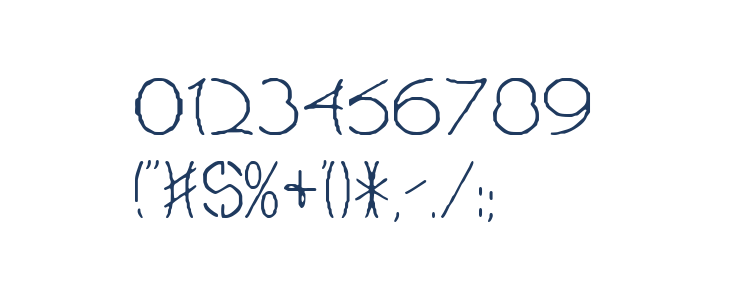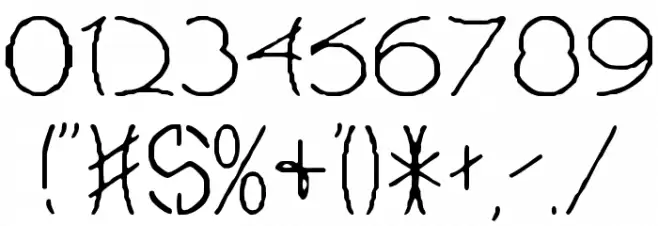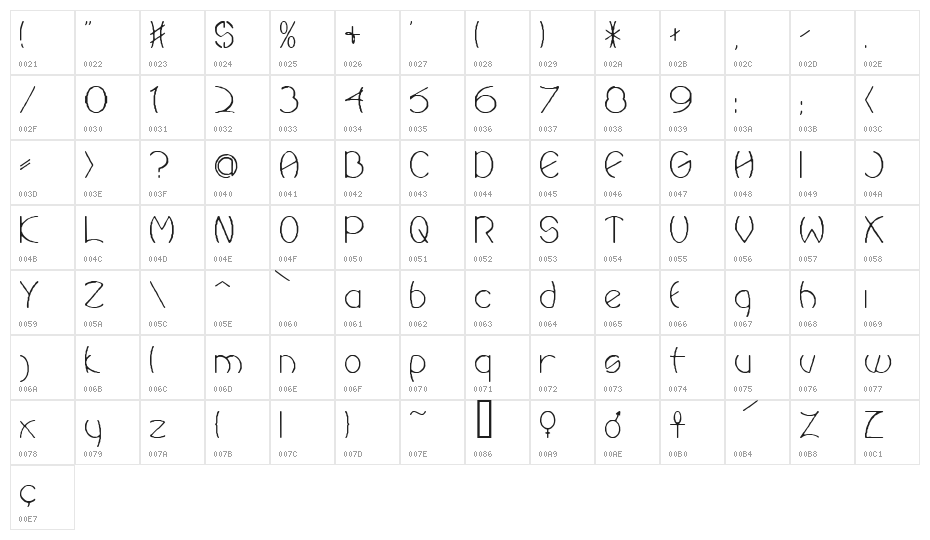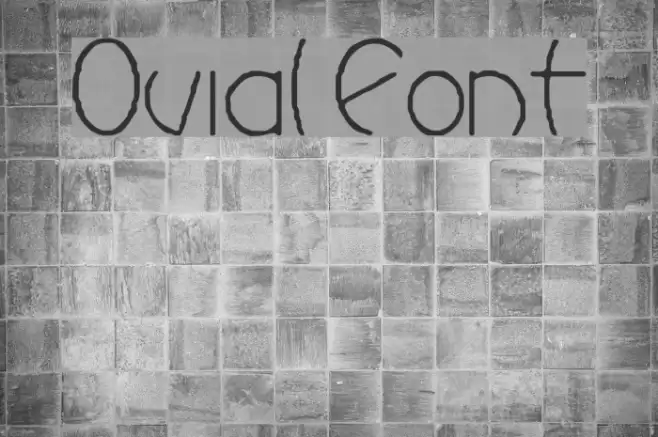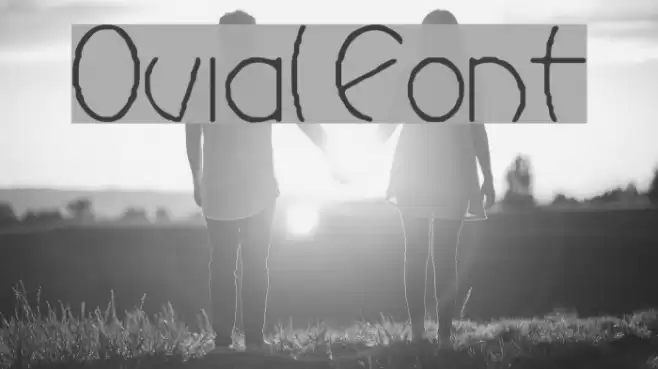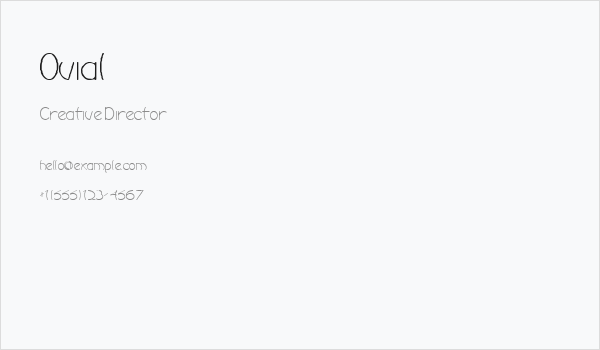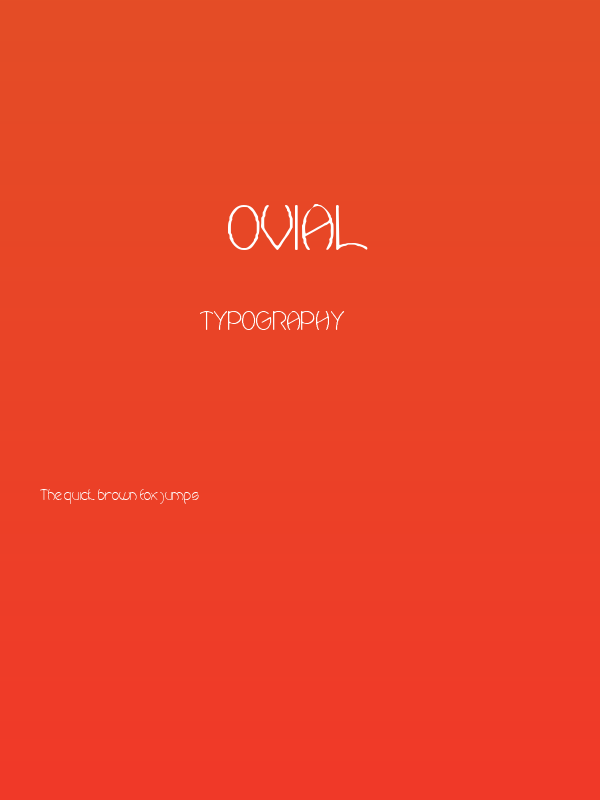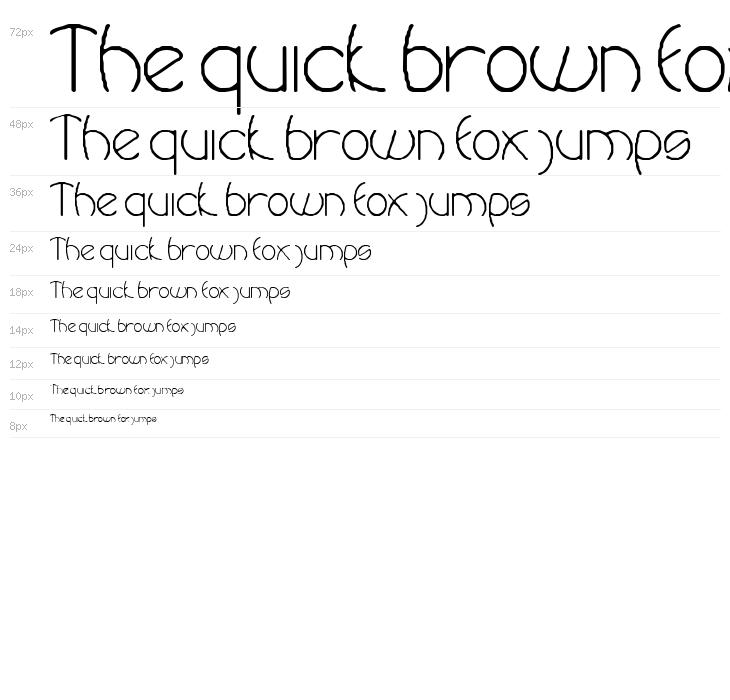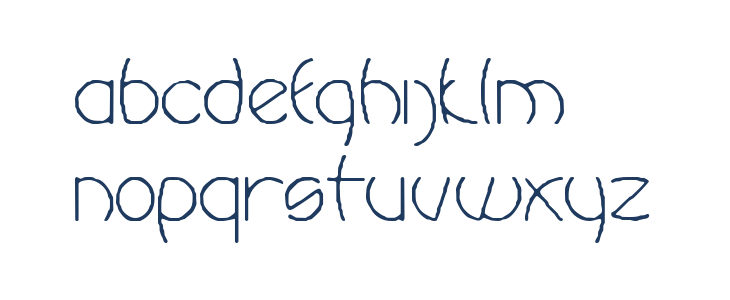
Ovial Font
Ovial Description
This font features a unique, hand-drawn style with a playful and artistic flair. The characters are slightly irregular, giving them a whimsical and organic appearance. The strokes are uneven, with a medium contrast that adds to the casual and informal feel. The letters are rounded and have a slightly condensed width, which contributes to the overall quirky and approachable look. This font is perfect for projects that require a personal touch, such as invitations, greeting cards, or creative branding. The numbers and special characters maintain the same playful style, ensuring consistency across all text elements.
| Use Case | Headlines, Creative projects, Branding |
| Proposed Projects | Ideal for invitations, greeting cards, creative branding, and artistic projects. |